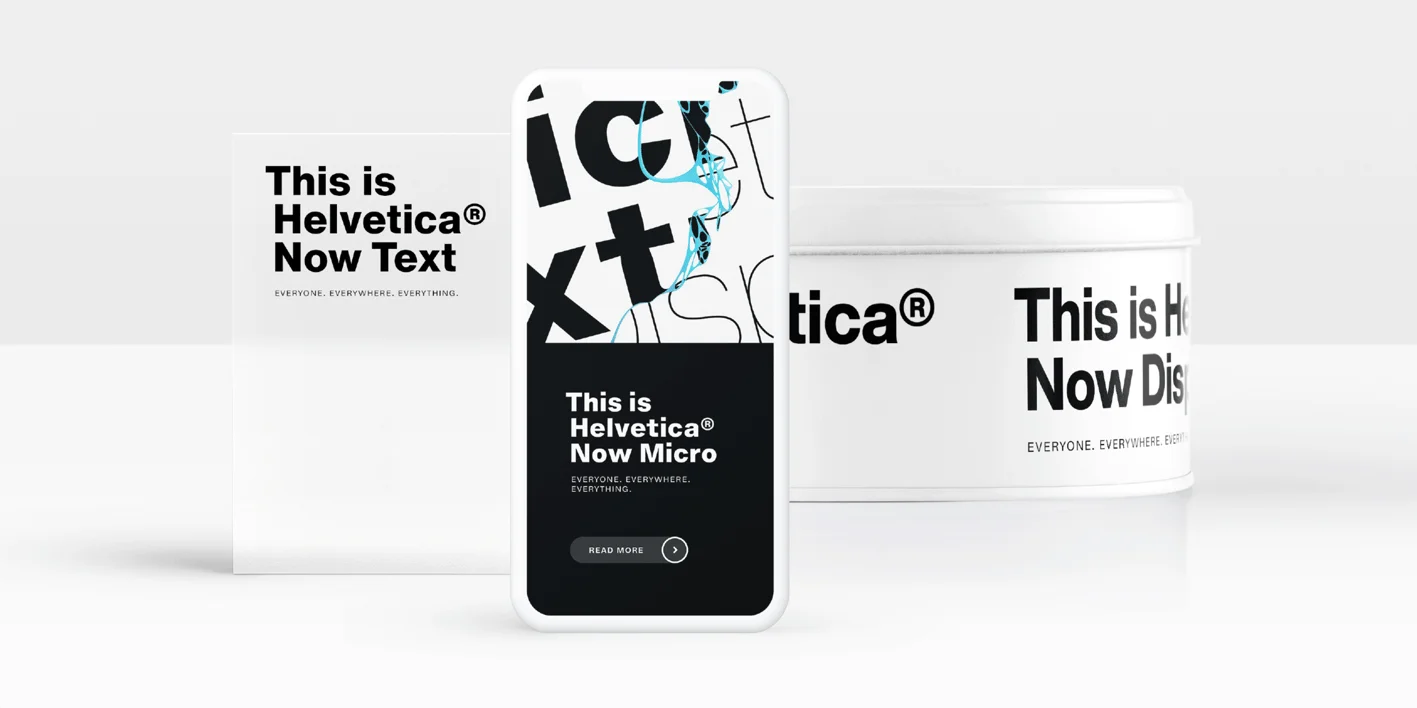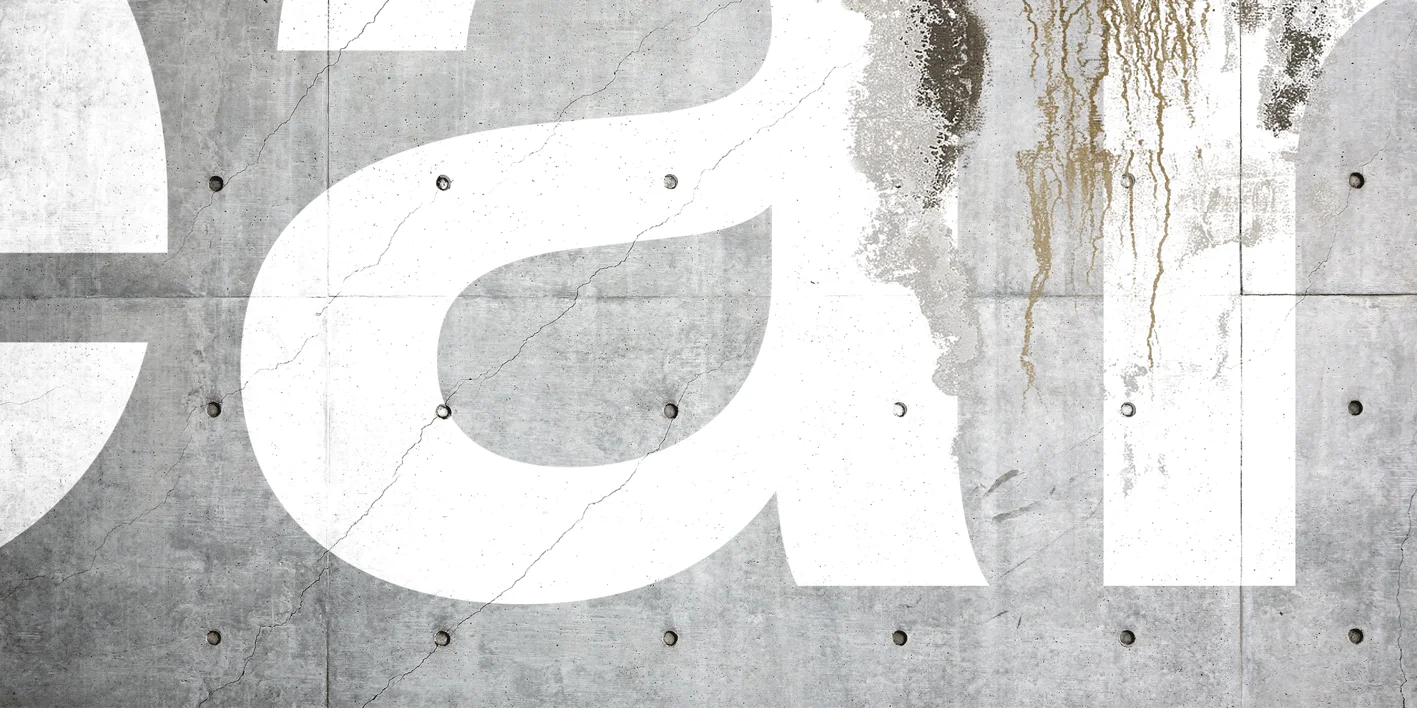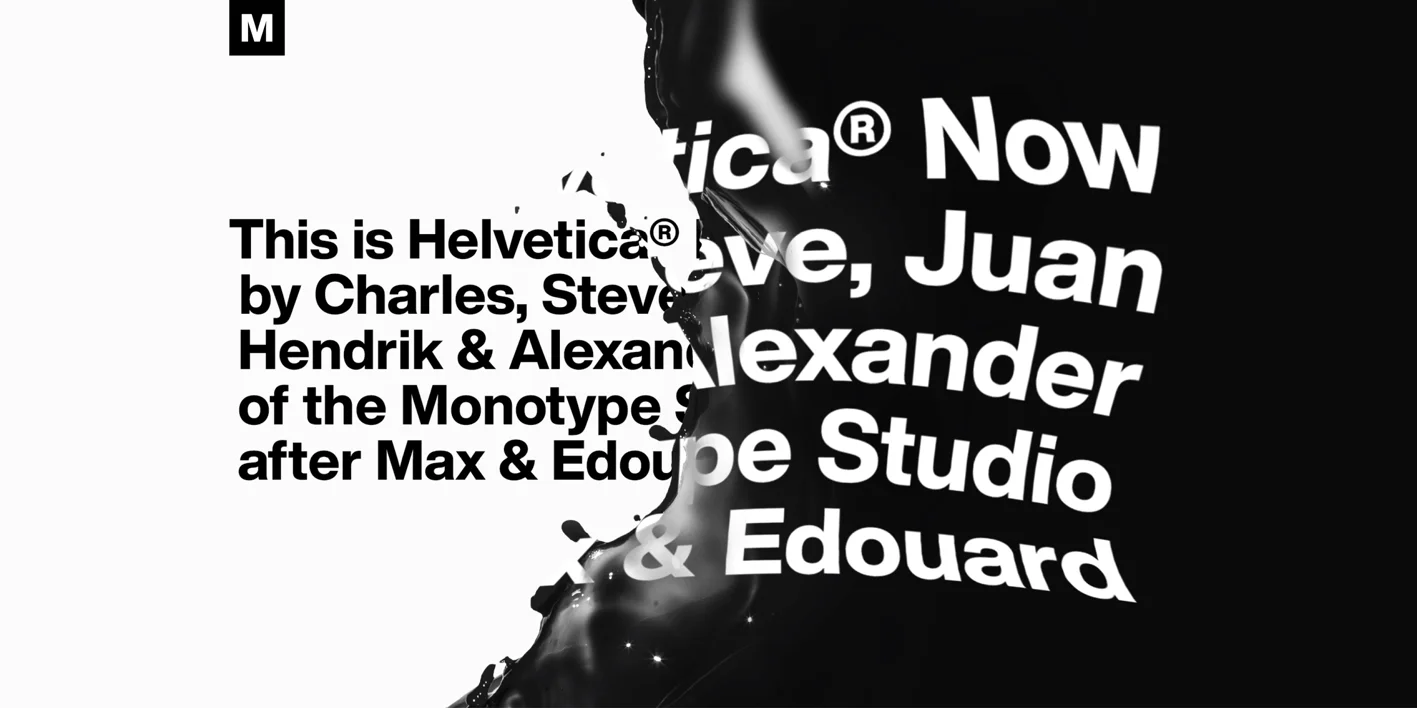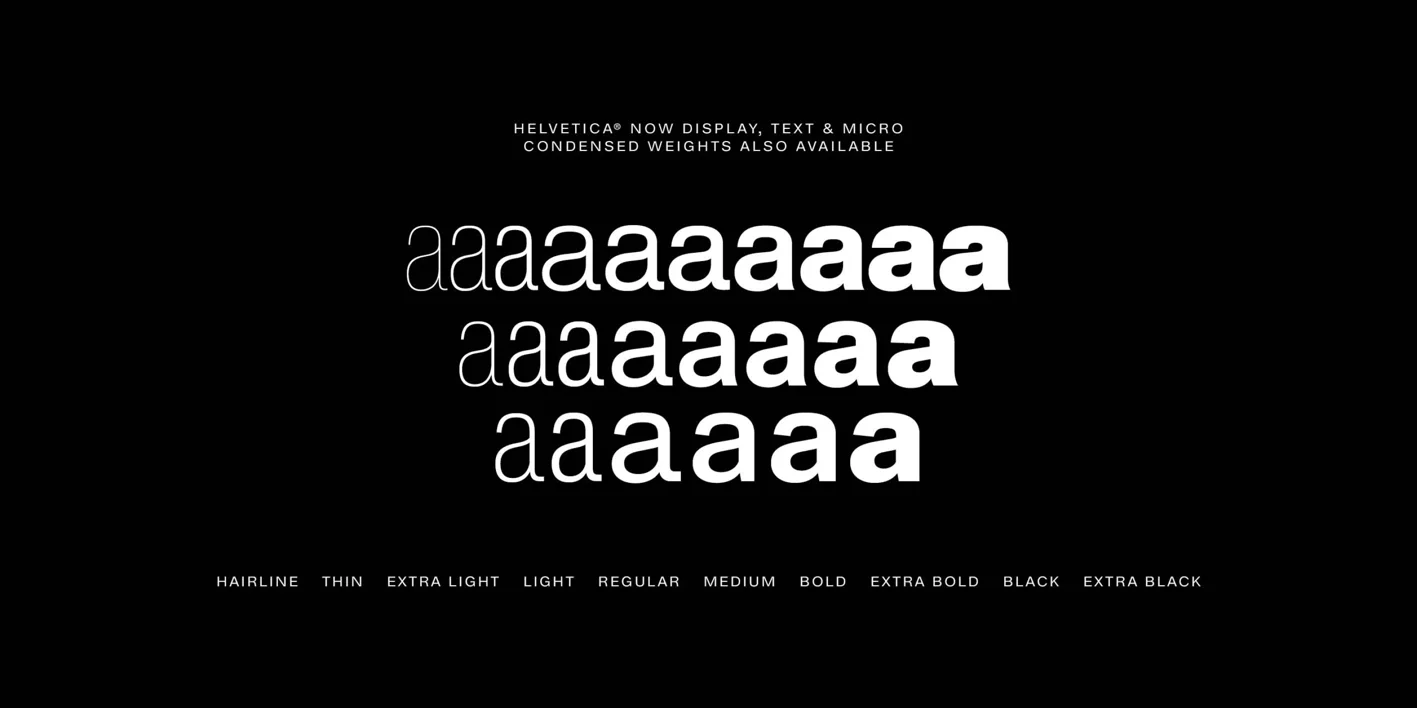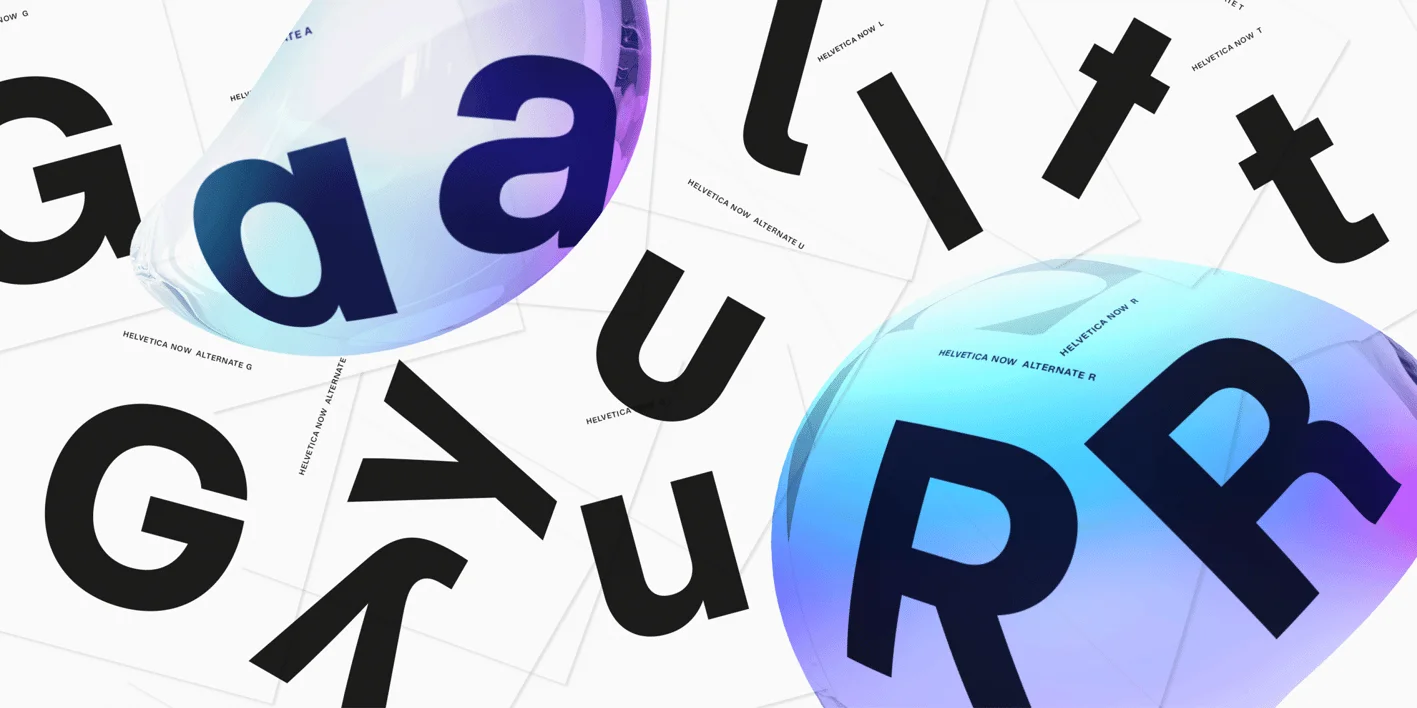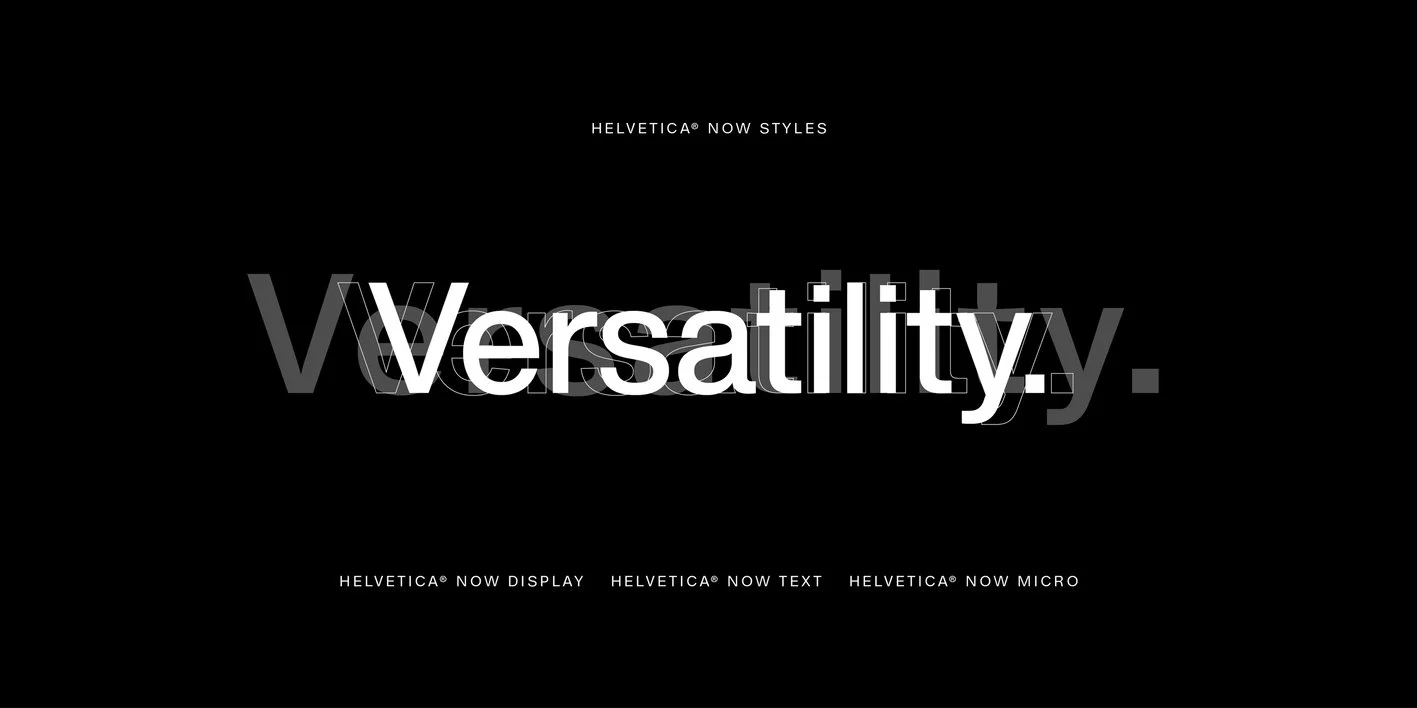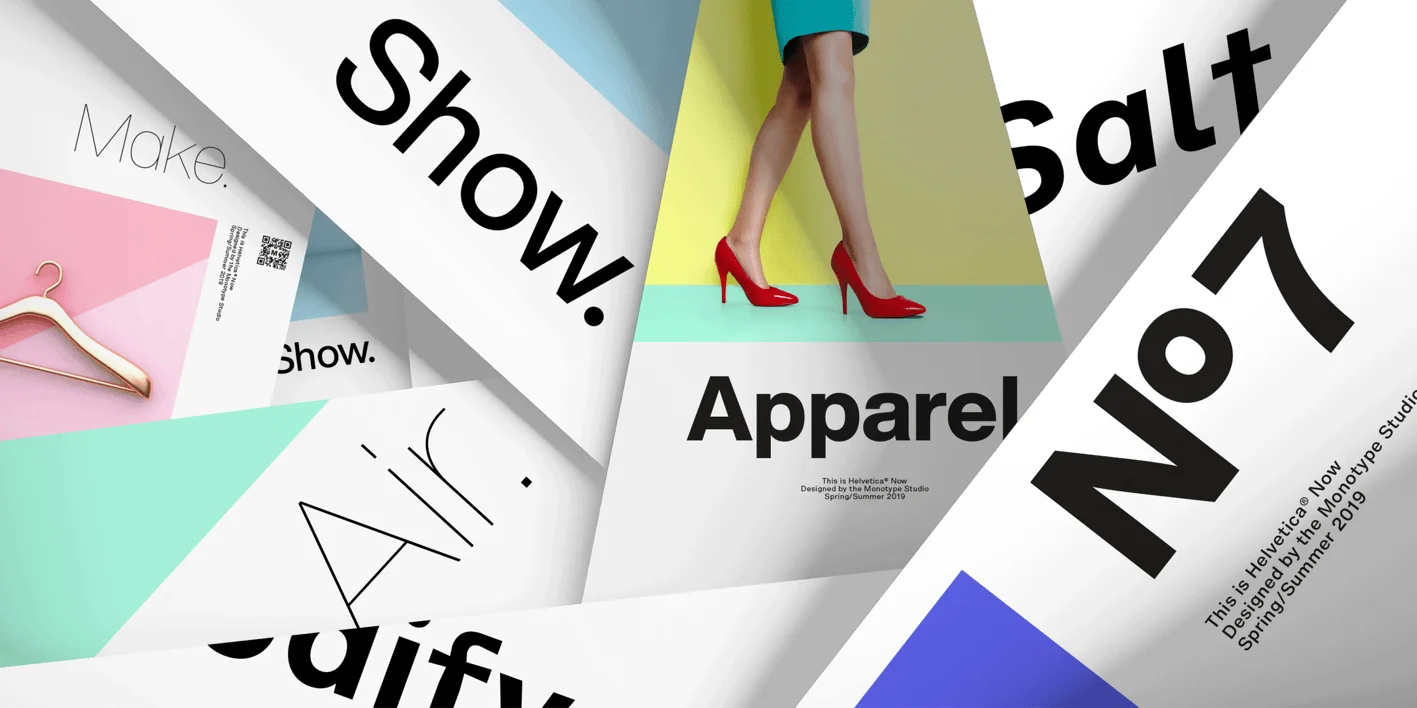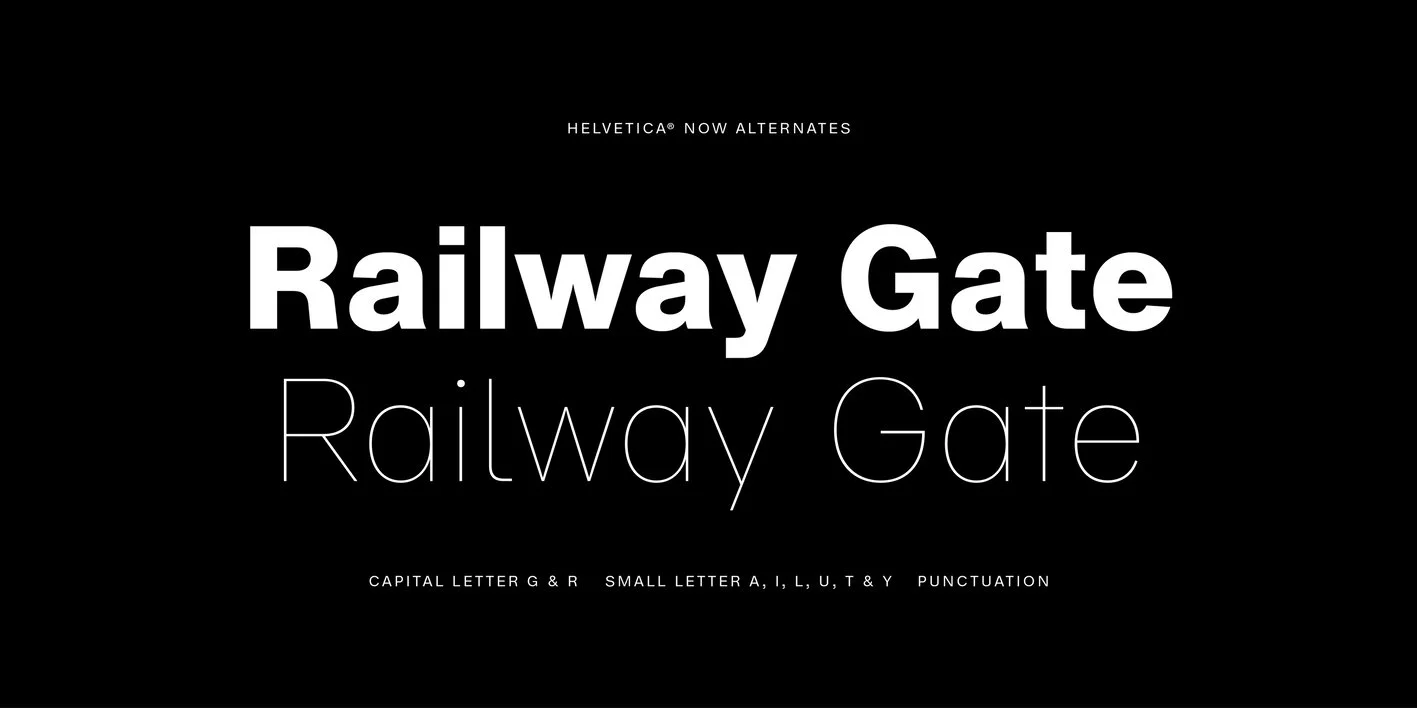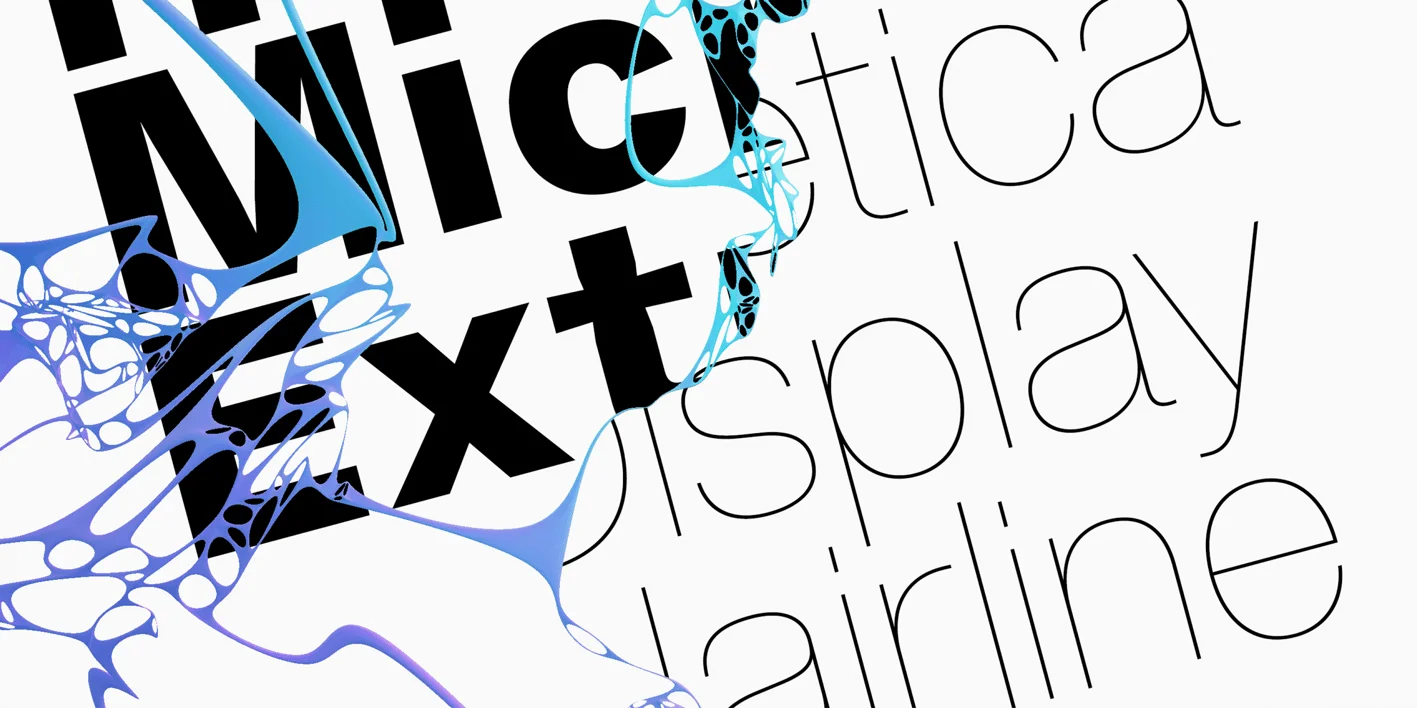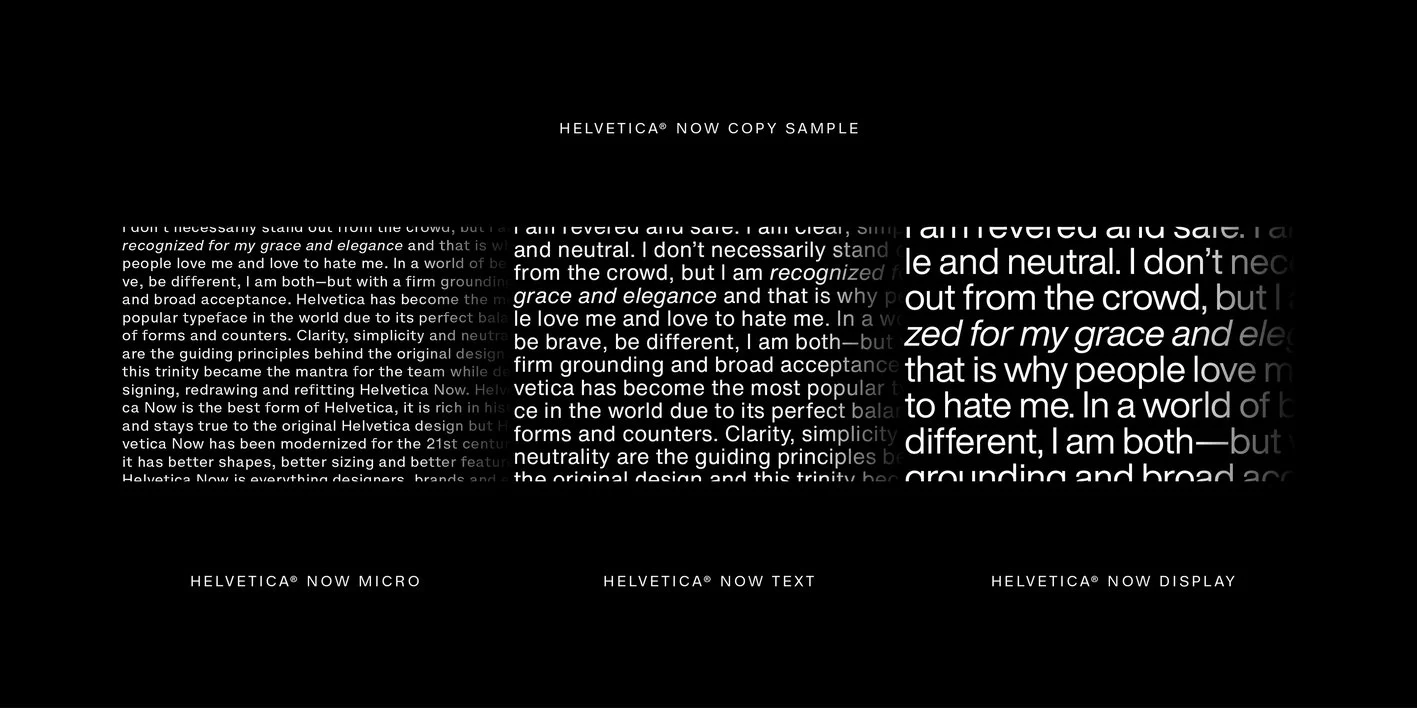
Helvetica Now Font
Every single glyph of Helvetica has been redrawn and redesigned for this expansive new edition – which preserves the typeface's Swiss mantra of clarity, simplicity and neutrality, while updating it for the demands of contemporary design and branding. Helvetica Now comprises 96 fonts, consisting of three distinct optical sizes: Micro, Text and Display, all in two widths. Each one has been carefully tailored to the demands of its size. The larger Display versions are drawn to show off the subtlety of Helvetica and spaced with headlines in mind, while the Text sizes focus on legibility, using robust strokes and comfortably loose spaces. The Micro sizes address an issue Helvetica has long faced – that of being 'micro type challenged'. In the past, the typeface struggled to be legible at tiny sizes because of its compactness and closed apertures. Helvetica Now's Micro designs are simplified and exaggerated to maintain the impression of Helvetica in tiny type, and their spacing is loose, providing remarkable legibility at microscopic sizes and in low-res environments. There's also an extensive set of alternates, which allow designers the opportunity to experiment with and adapt Helvetica's tone of voice. This includes a hooked version of the lowercase l (addressing a common complaint that the capital I and lowercase l are indistinguishable) as well as a rounded G, and a straight-legged R, a single storey a and a lowercase u without a trailing serif. In the past, designers had to nudge, trim and contort the design to create stylish display-type lockups with Helvetica. Helvetica Now Display was designed and spaced with those modifications in mind—saving effort and providing more consistent (and more stylish) results. “Helvetica is the gold standard,' says Monotype Type Director Charles Nix. “To use it is to claim that you are the ultimate expression of whatever your brand aspires to be. Its blankness is its power.”